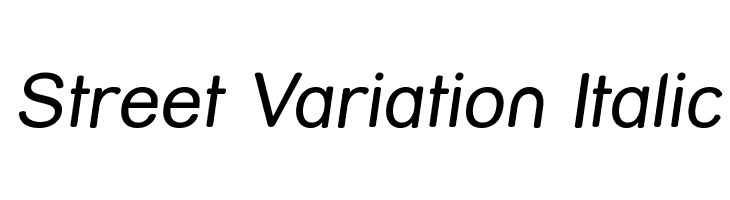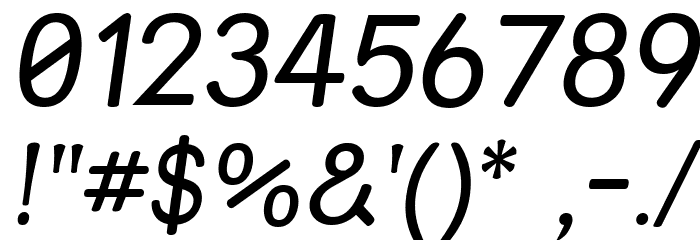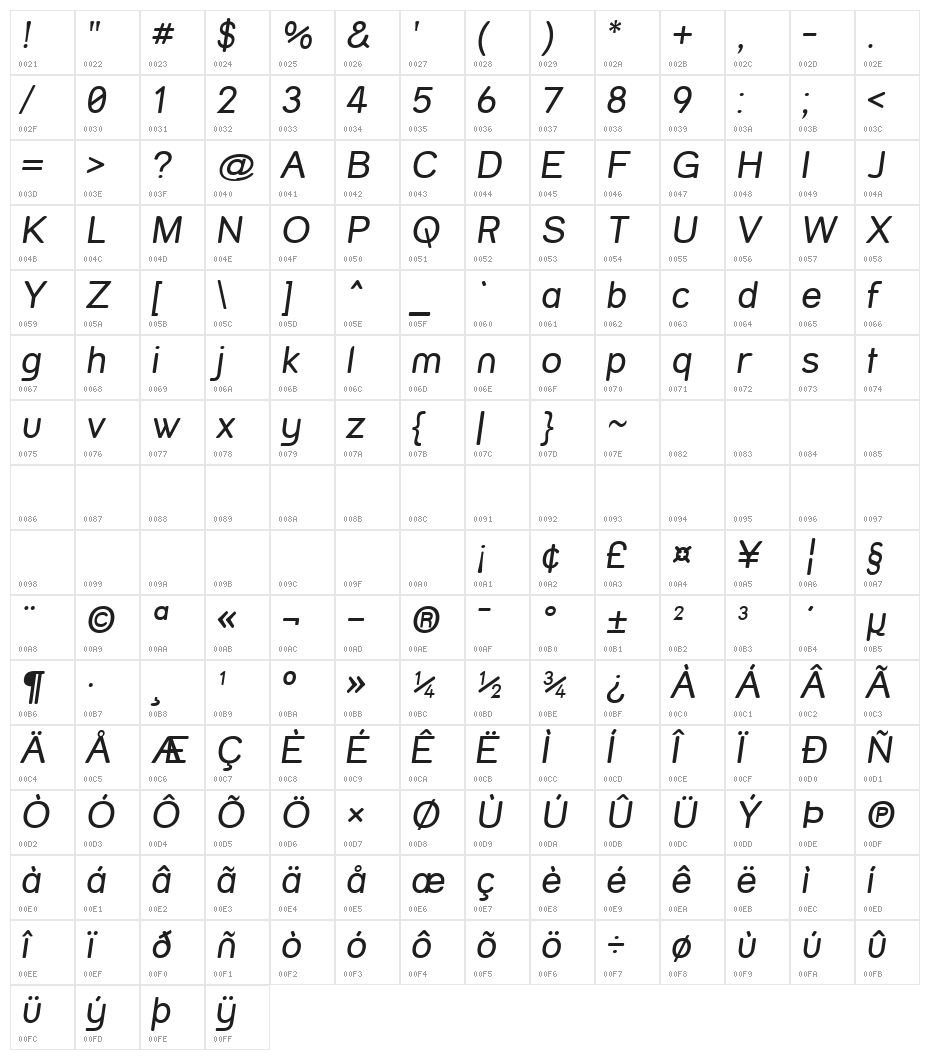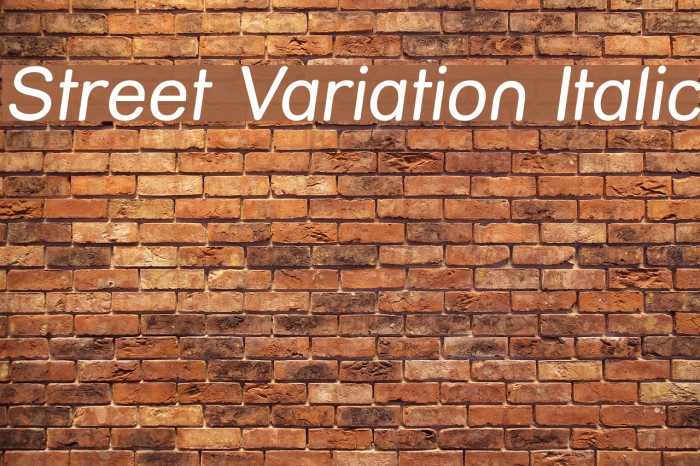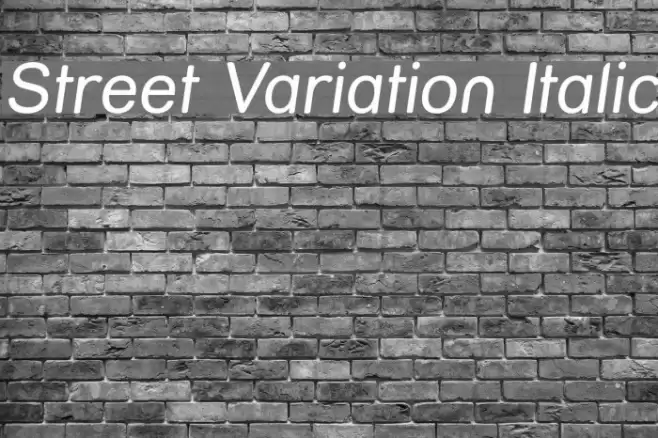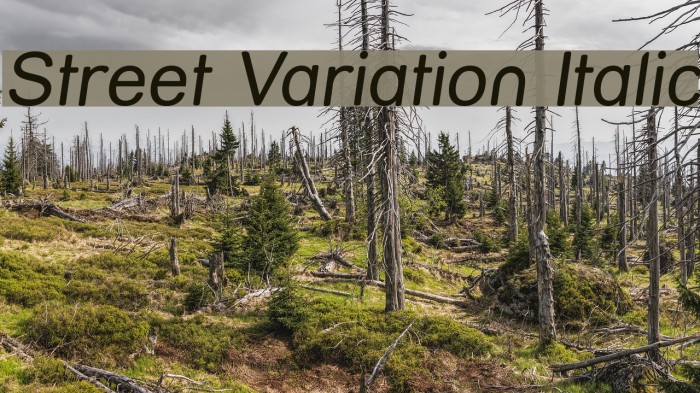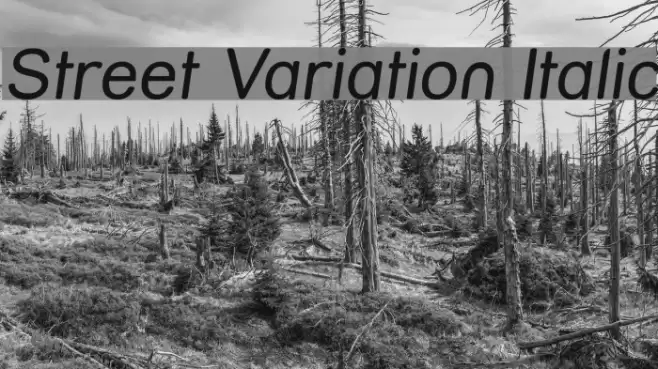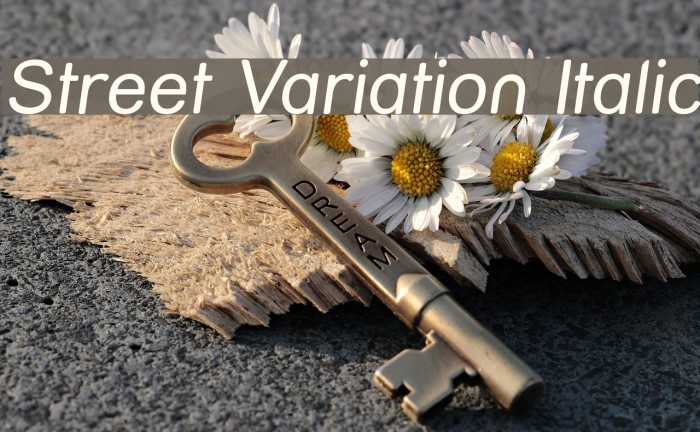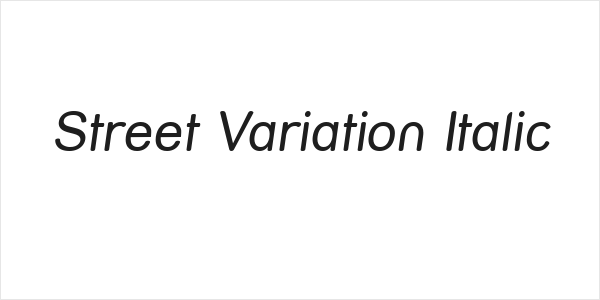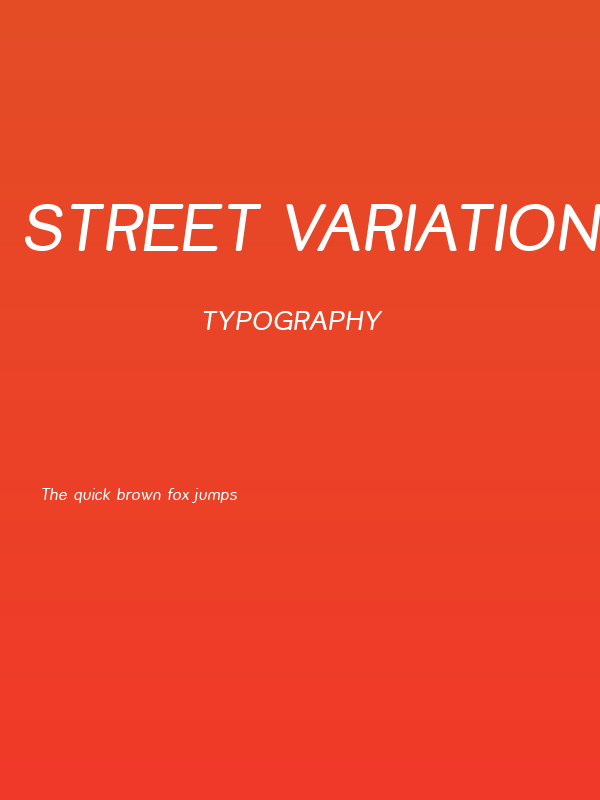
Street Variation Italic Font
Street Variation Italic Description
This font features a sleek, modern design with a slight italic slant, giving it a dynamic and forward-moving appearance. The characters are clean and sans-serif, offering a contemporary look that is both professional and approachable. The uppercase and lowercase letters are well-proportioned, maintaining readability across different sizes. The numerals are distinct and clear, making them suitable for a variety of applications. Special characters are included, enhancing the font's versatility. The overall design is minimalistic yet stylish, making it ideal for modern branding and design projects.
| Proposed Projects | Ideal for branding, advertising, digital media, and editorial design. |